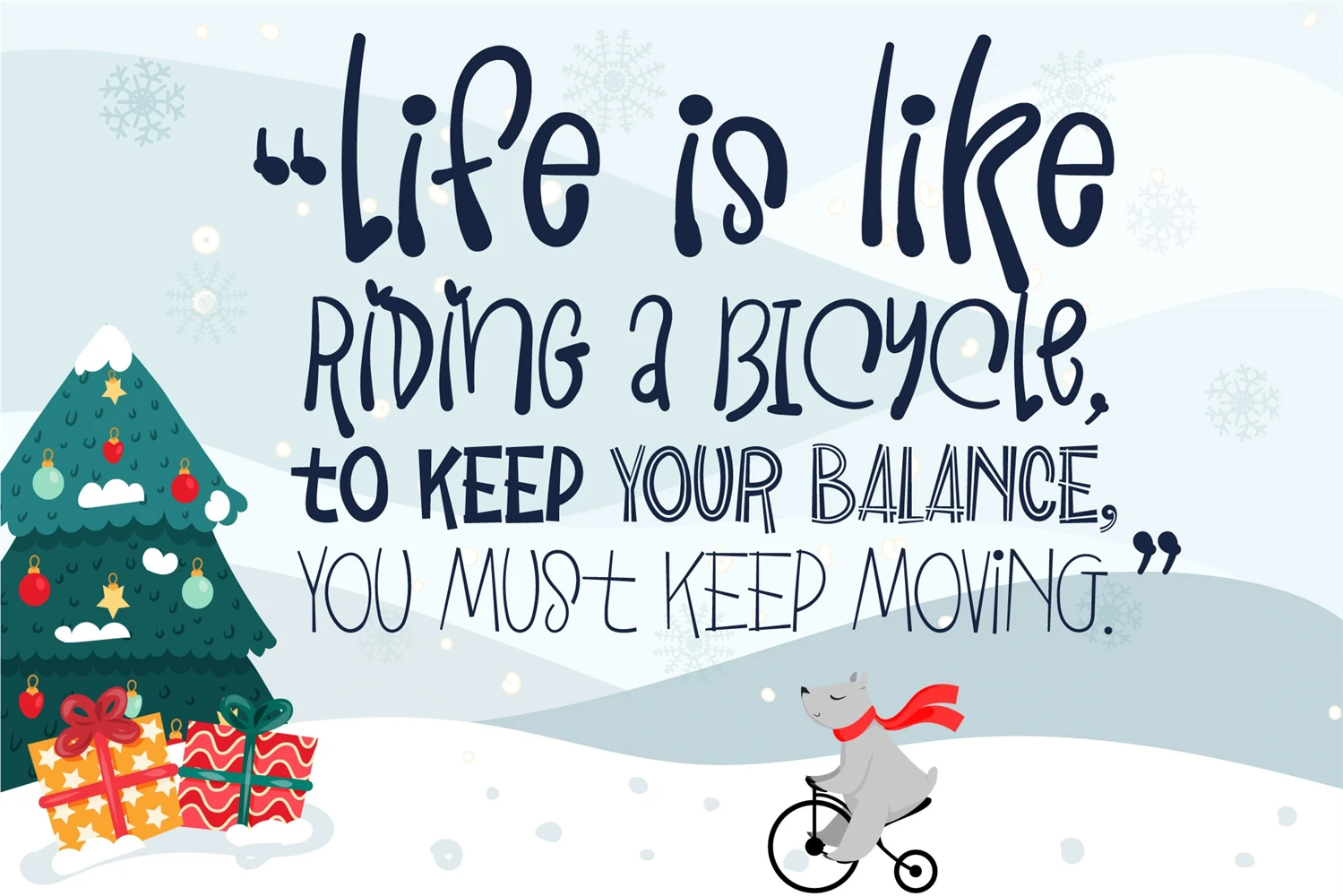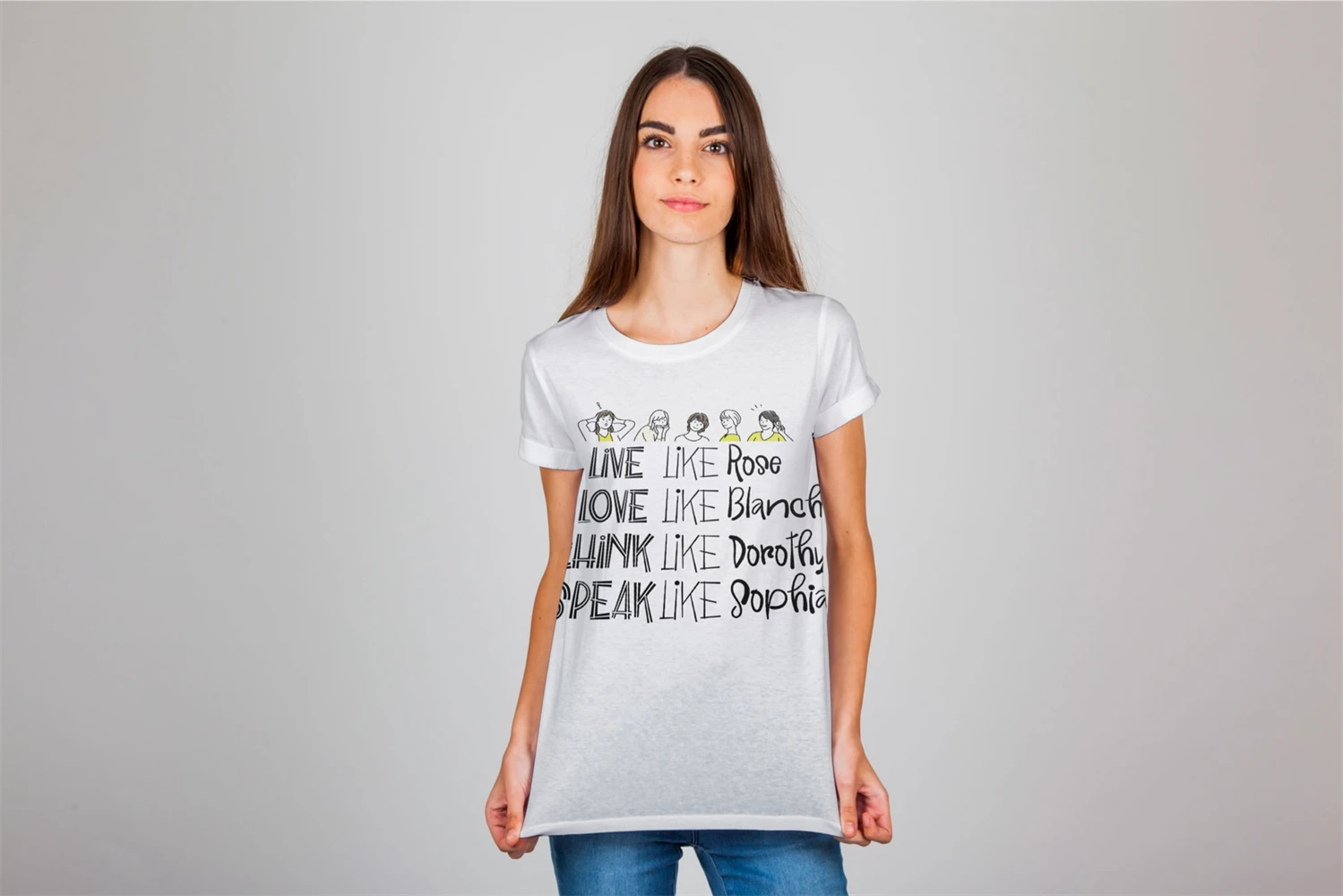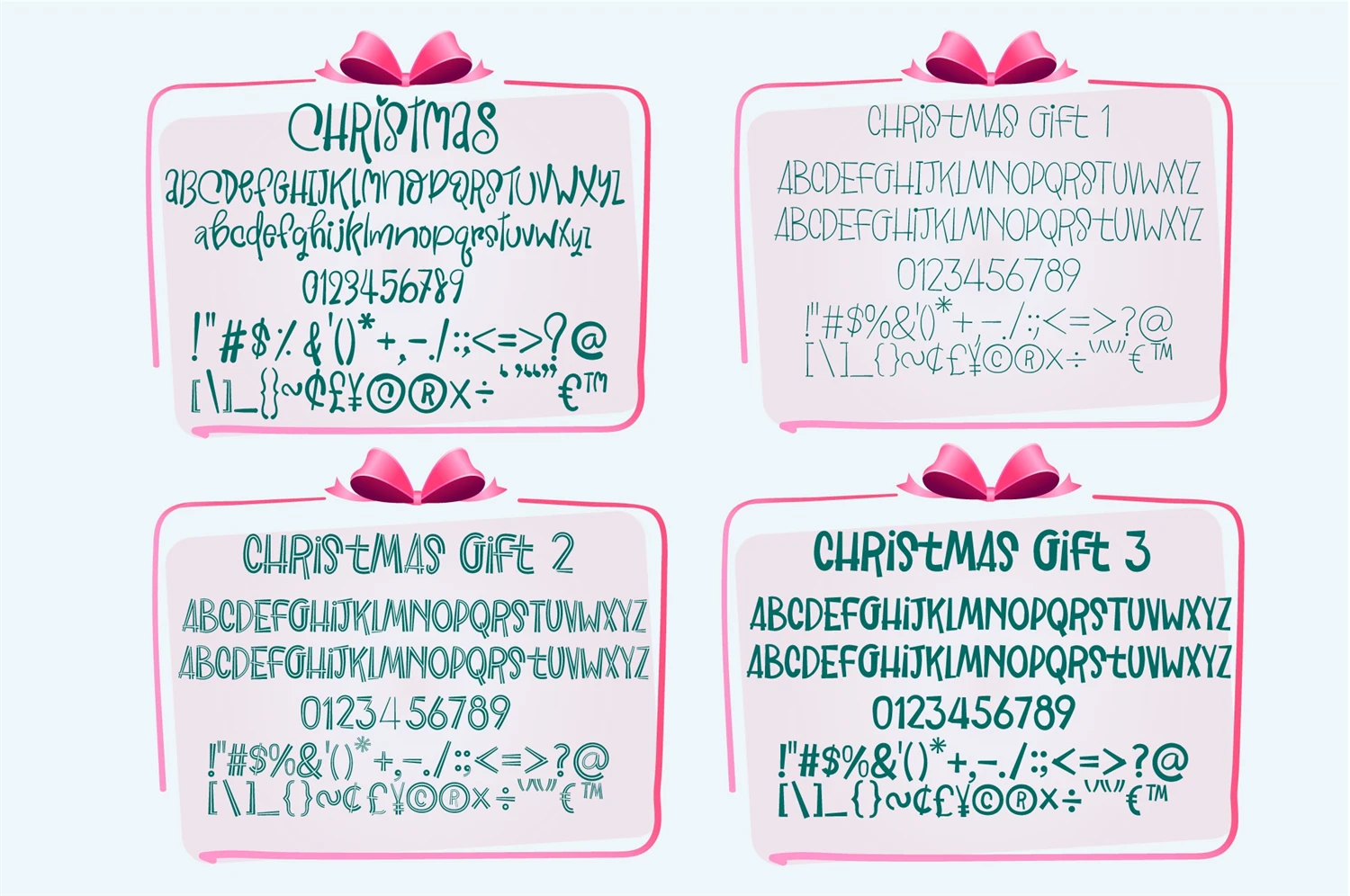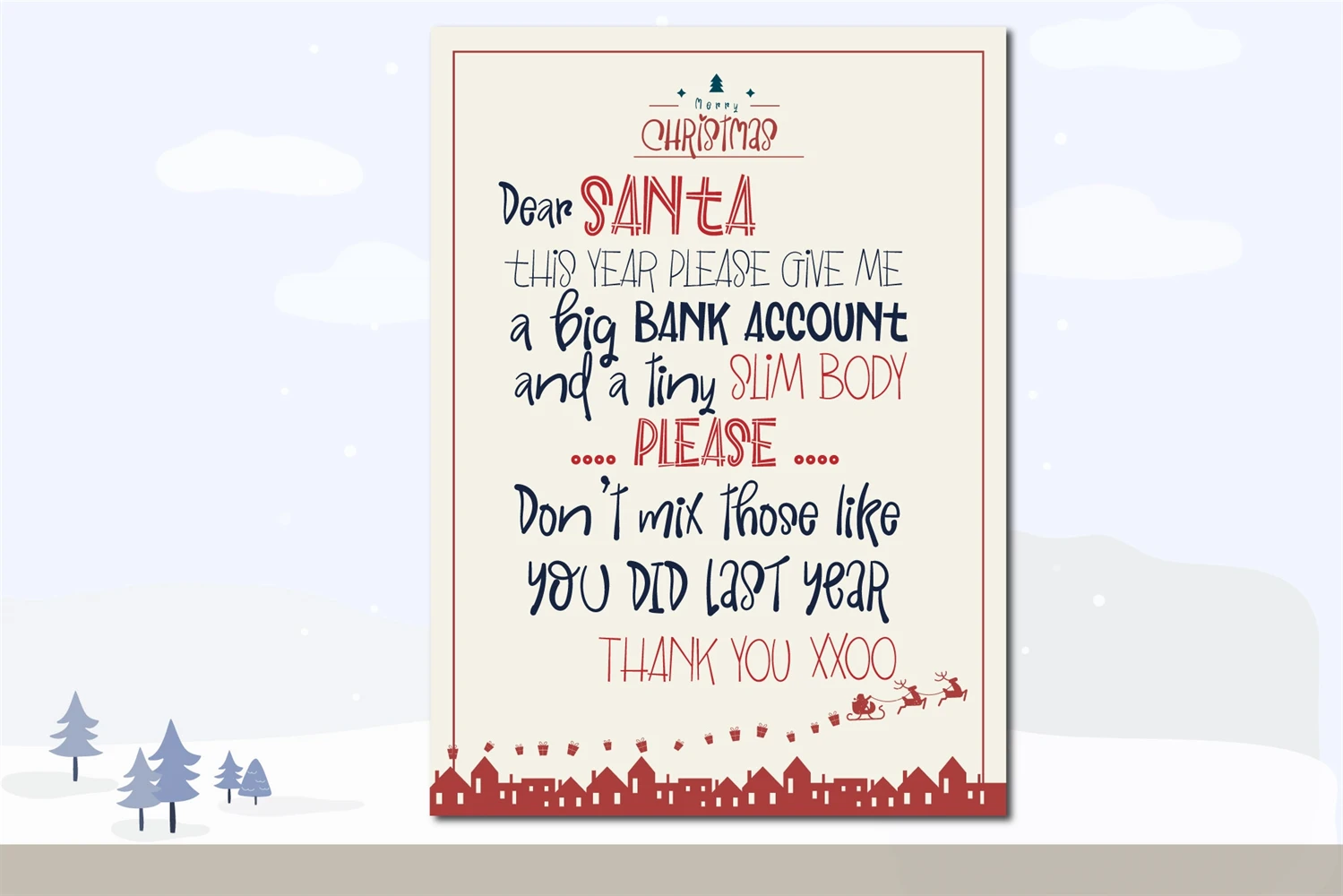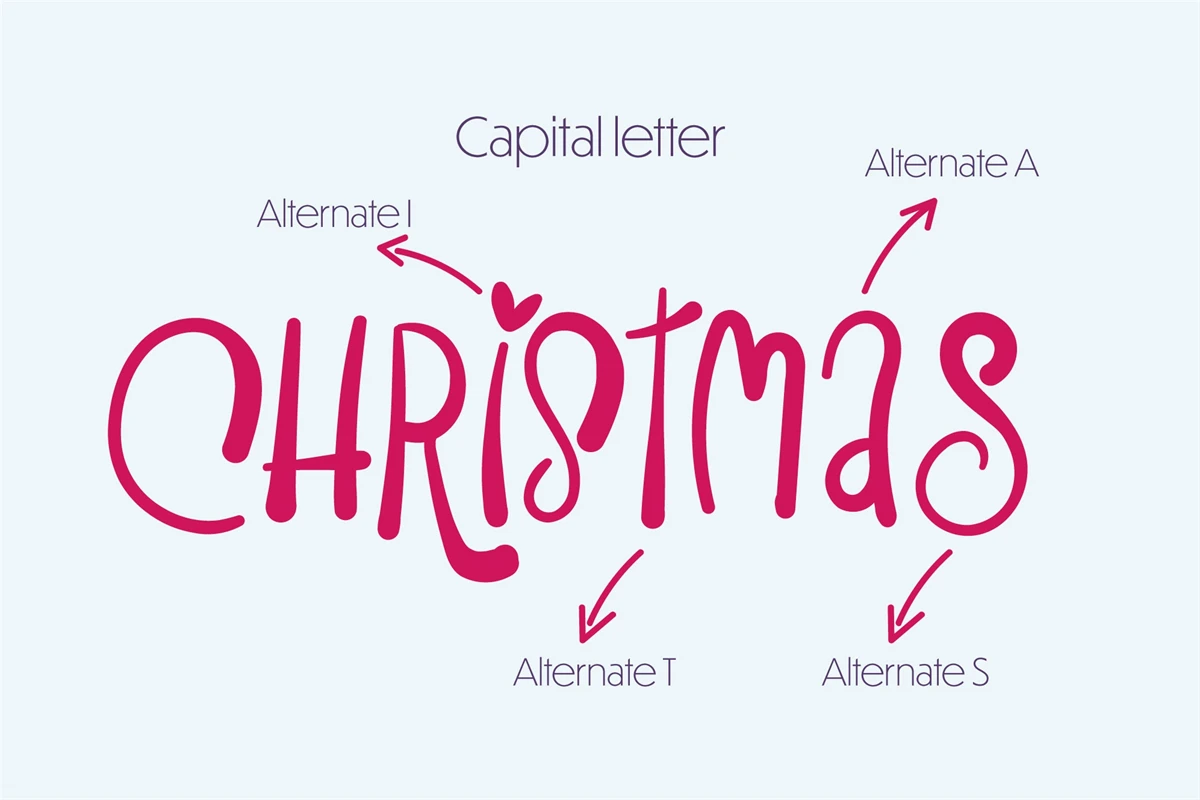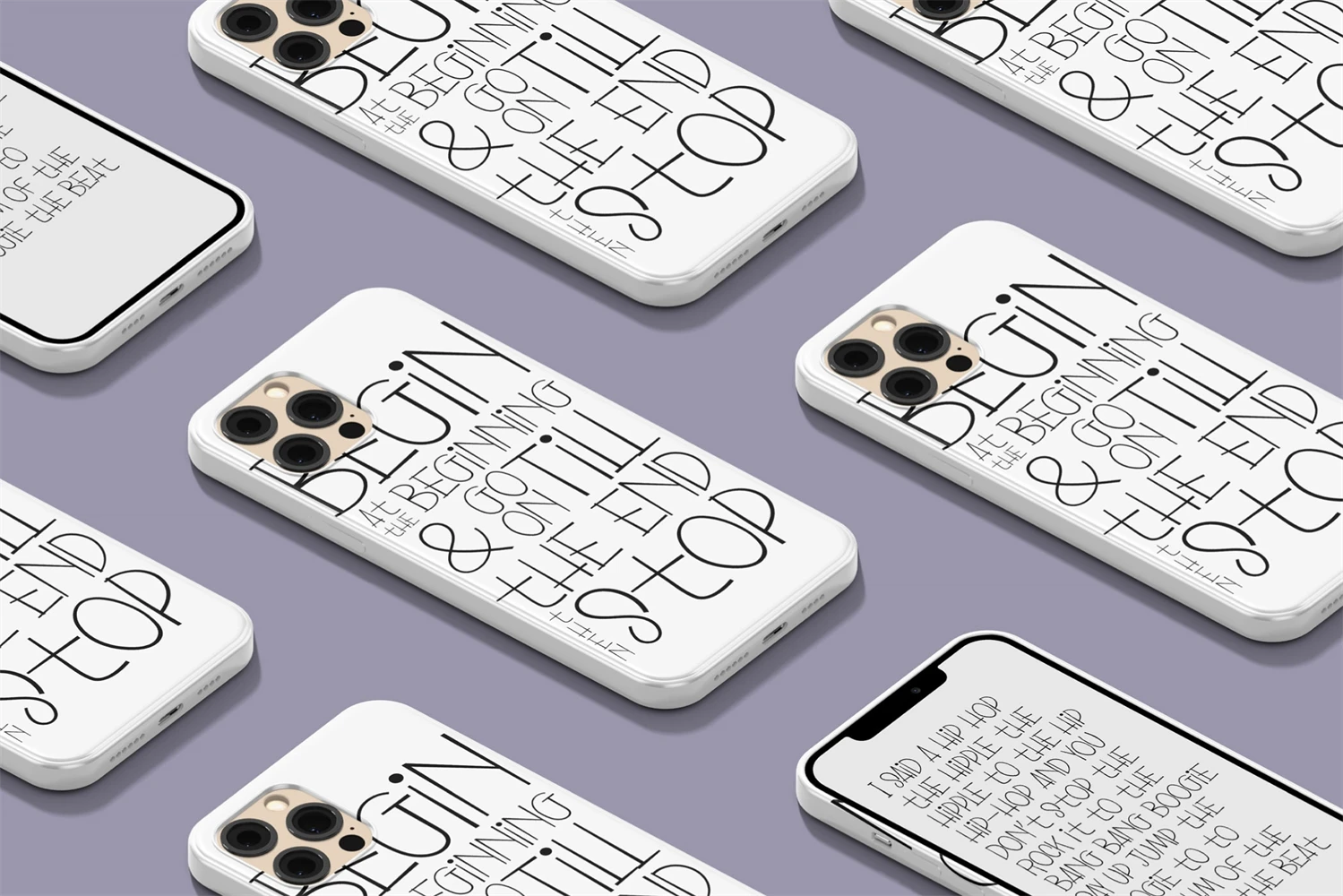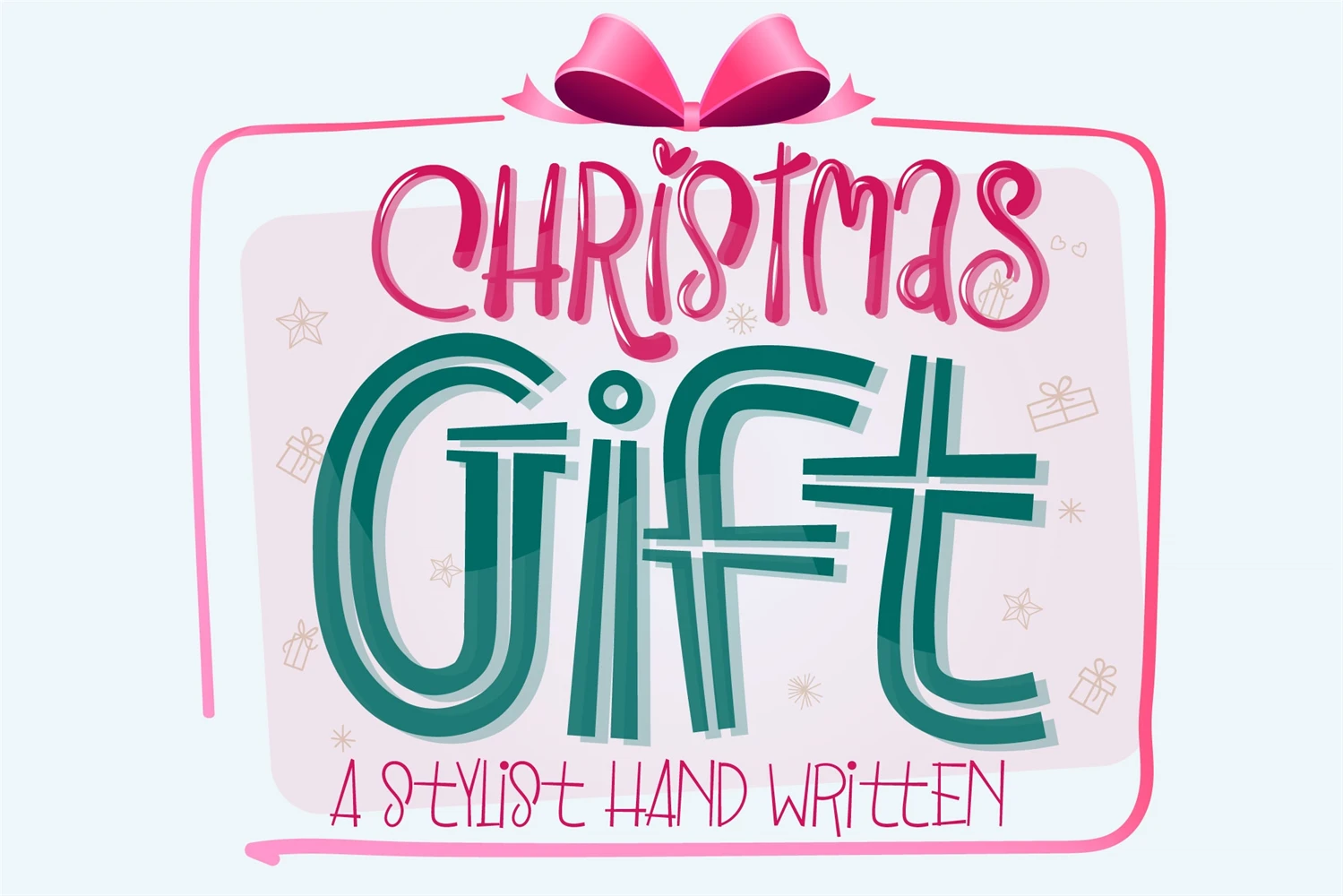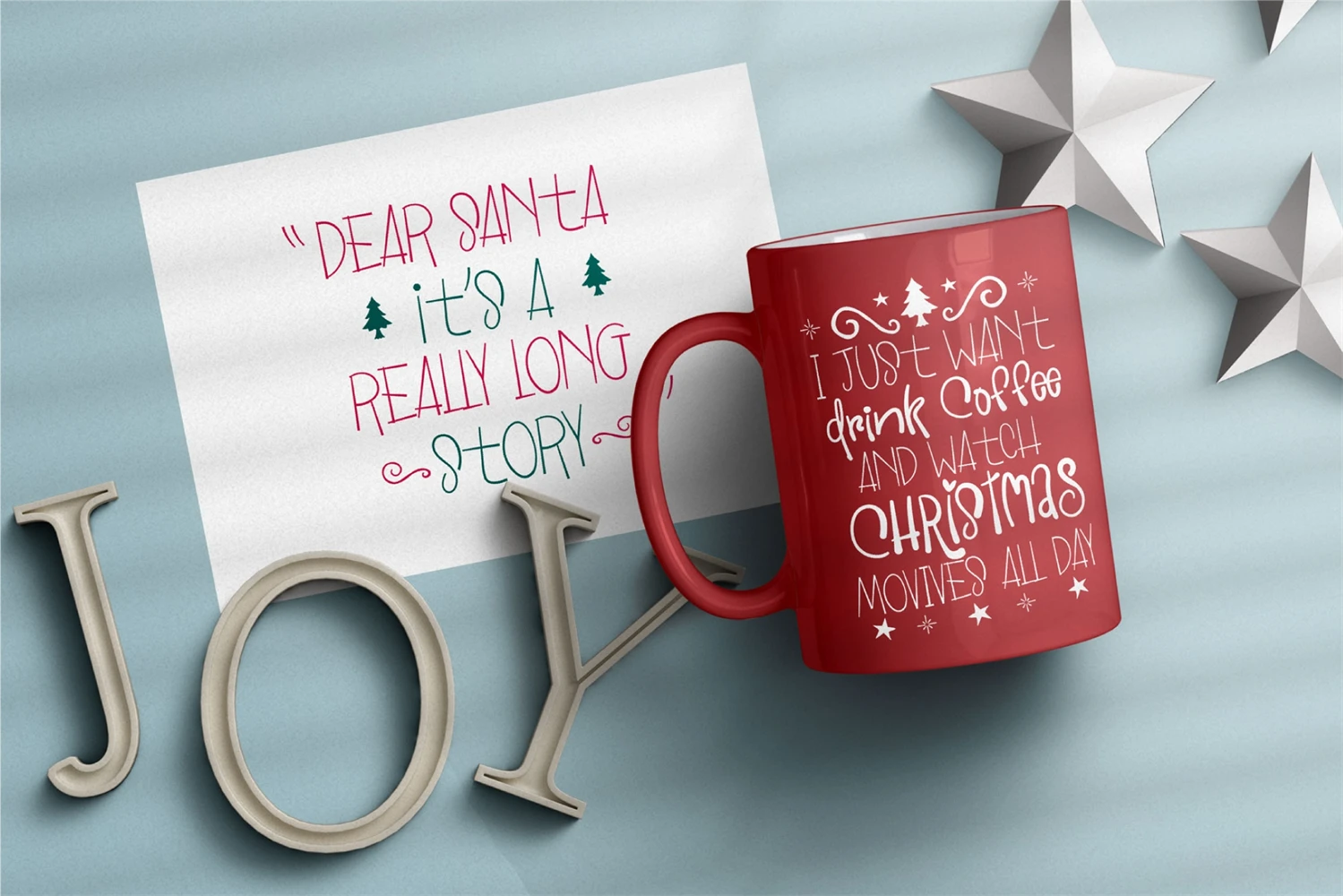
Introducing Christmas Gift Font, a delightful display font that captures the enchantment of the winter holidays. Designed to bring joy and warmth to your projects, this playful font is the perfect choice for a wide range of creative endeavors. Let the magic of Christmas come alive through the charming and whimsical letters of Christmas Gift Font. Whether you're designing greeting and holiday cards, crafting quotes, working on children's books and activities, creating captivating logos, or personalizing mugs and gift bags, this font will add a touch of festive cheer to every design. Spread the holiday spirit with Christmas Gift Font and make your projects shine with the joy and magic of Christmas.